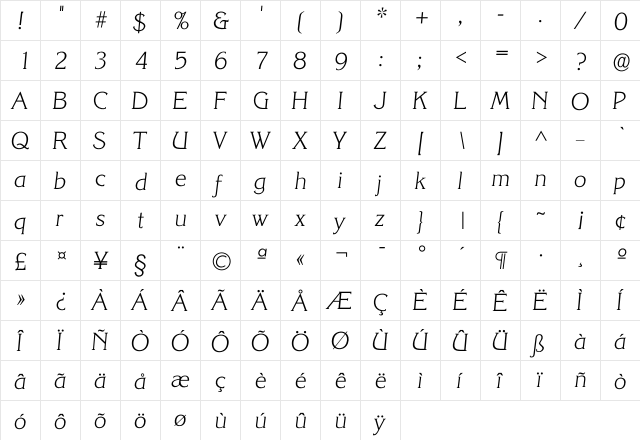
Ikorinth Xlight
Design Context for Ikorinth Typeface
Ikorinth takes a measured approach to typography — its balanced proportions and neutral character make it a reliable workhorse for both digital and print work. Its slender proportions lend an understated elegance to any composition.